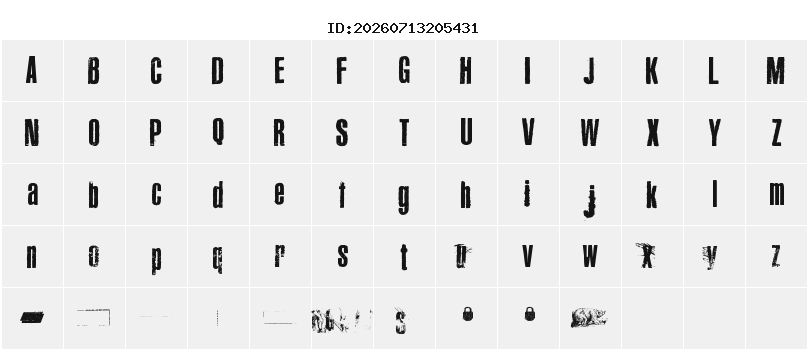
Canard Preview
• Font Name: Canard
• Full Font Name: Canard
• Version: Version 1.00 January 7, 2010, initial release
• Character Count: 81
About Canard.ttf
Canard.ttf is a modern, elegant sans-serif font designed for ultimate readability and visual harmony. Perfect for branding, headlines, web design, and print materials.